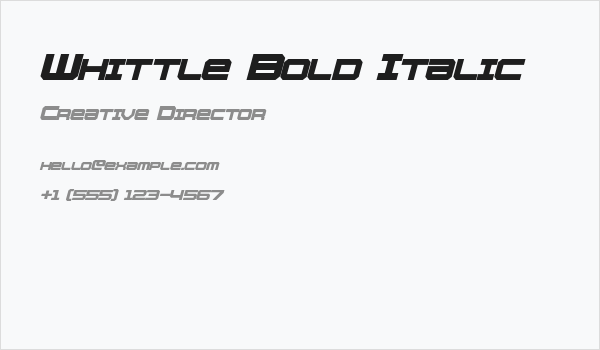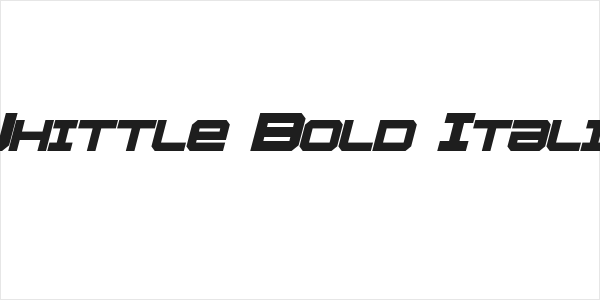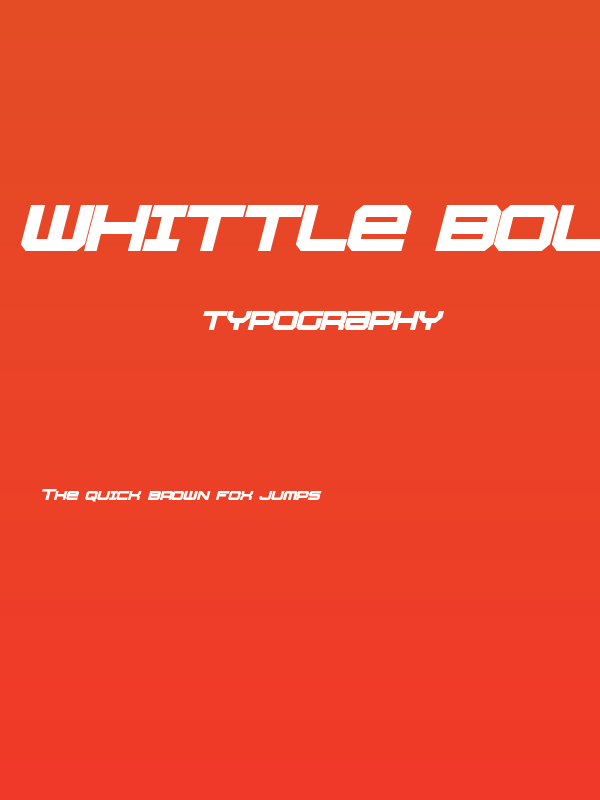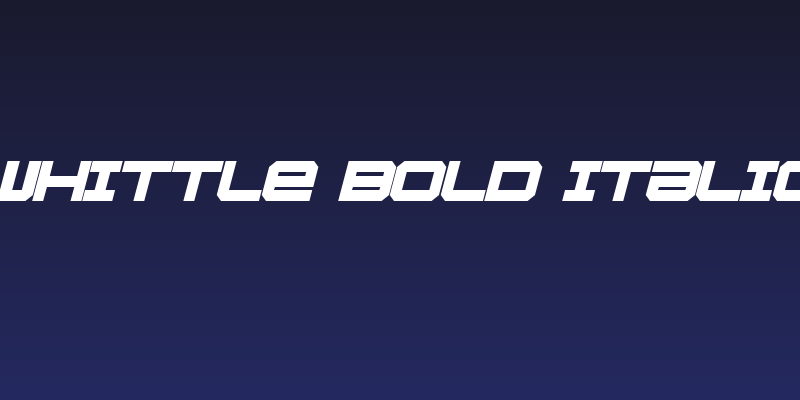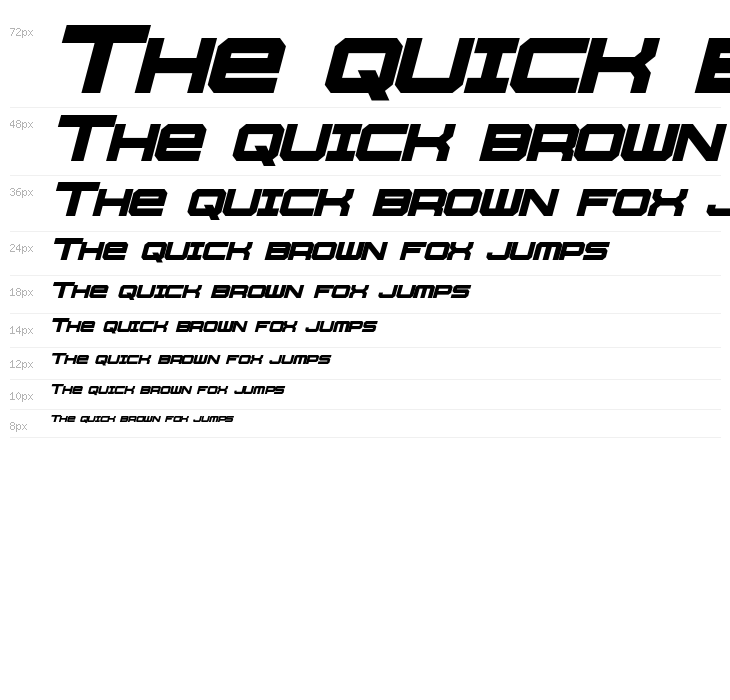
Whittle Bold Italic Font
Whittle Bold Italic Description
This font exhibits a bold and italicized style with a futuristic and dynamic appearance. The characters are sharply angled, giving a sense of motion and speed. The uppercase and lowercase letters maintain a consistent geometric form, with straight lines and sharp edges. Numbers and special characters follow the same design principles, ensuring uniformity across all glyphs. The font's bold weight and italic slant make it stand out, suitable for attention-grabbing designs. Its strong presence is ideal for projects that require a modern and edgy look.
| Proposed Projects | Ideal for sports branding, tech-related designs, video game titles, and futuristic-themed posters. |